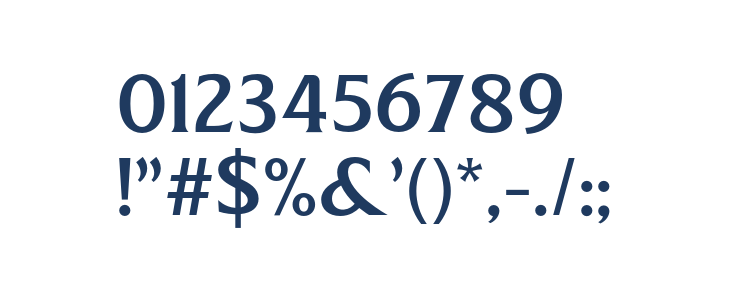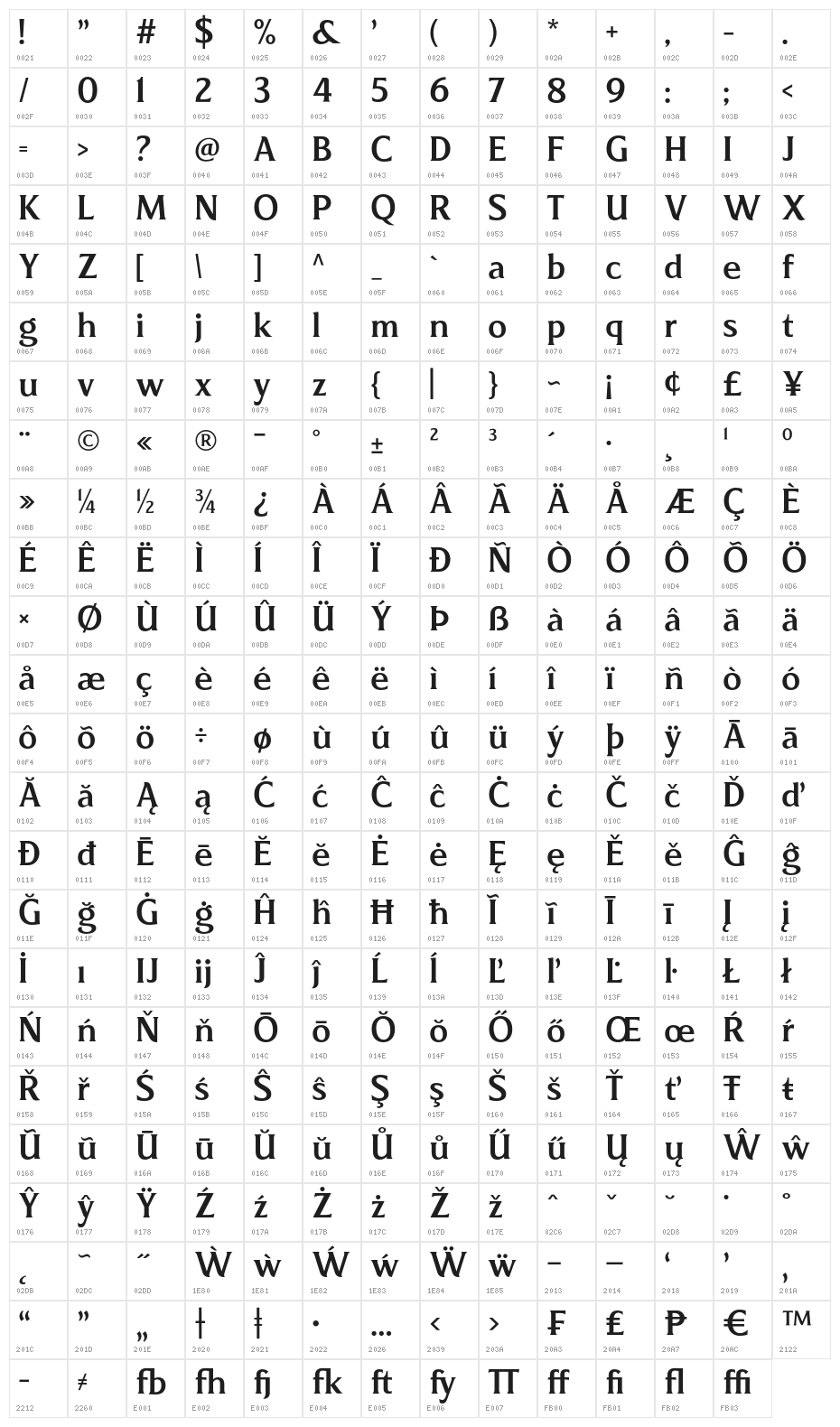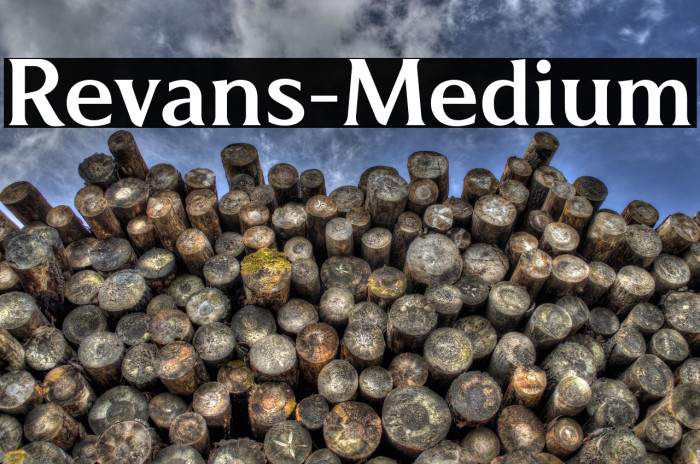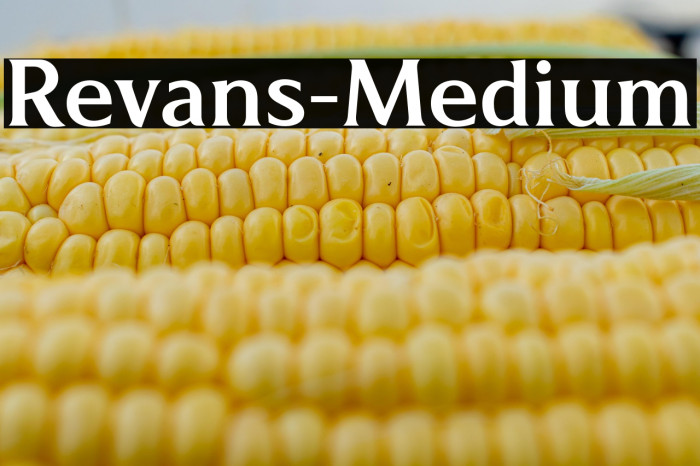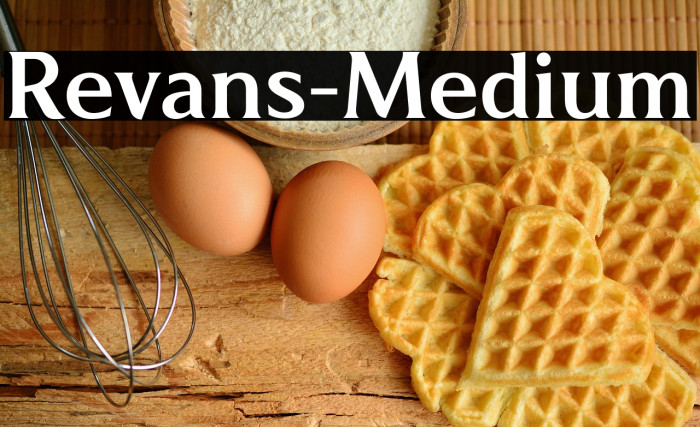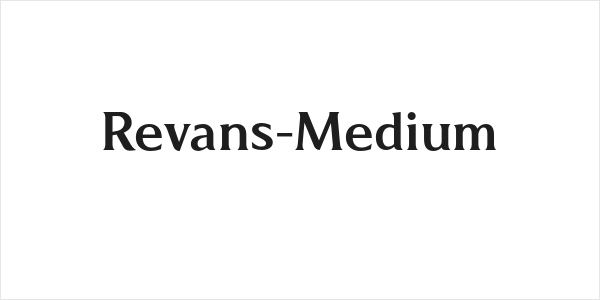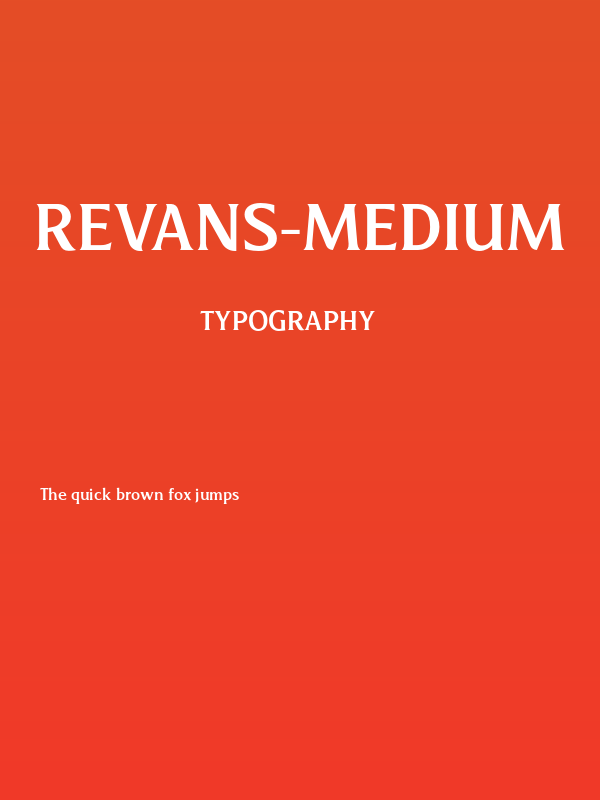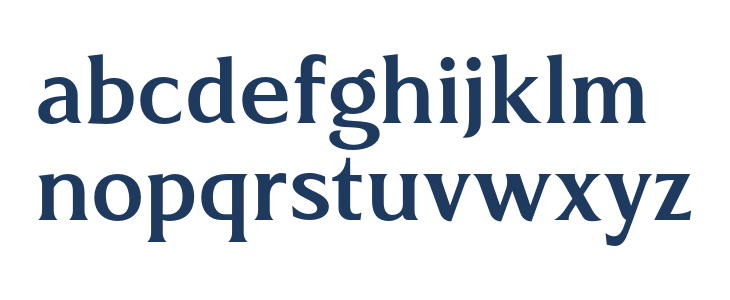
Revans-Medium Font
Revans-Medium Description
This font features a classic serif style with a modern twist, characterized by its elegant and refined letterforms. The serifs are pronounced yet not overly ornate, providing a balance between tradition and contemporary design. The uppercase letters exhibit a strong presence, while the lowercase letters maintain readability with a slightly more delicate structure. The numerals are clear and consistent, making them suitable for various applications. Special characters are well-integrated, ensuring versatility in usage. Overall, the font exudes sophistication and is ideal for projects that require a touch of elegance.
| Proposed Projects | Ideal for editorial design, branding, book covers, and formal invitations. |